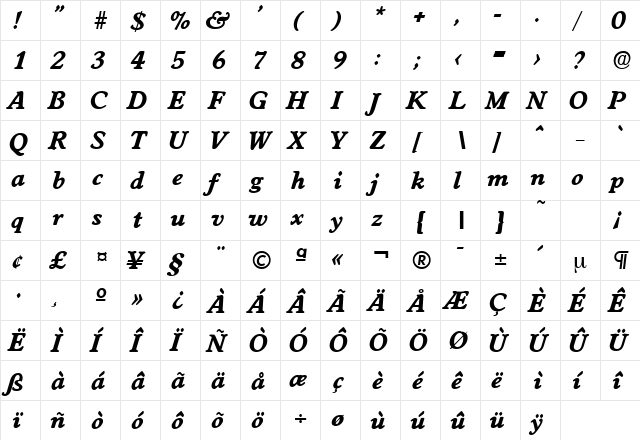
Worcester-Serial-ExtraBold RegularItalic
Design Context for Worcester-Serial-ExtraBold Typeface
Worcester-Serial-ExtraBold is a composed and adaptable typeface that performs quietly and consistently across a wide range of design contexts. The slanted form adds forward momentum and visual energy. Its bold stroke weight gives it real presence on the page.
Pro Tip: Try Worcester-Serial-ExtraBold for annotation and caption copy alongside an upright companion — the contrast in angle creates a dynamic but ordered typographic system.